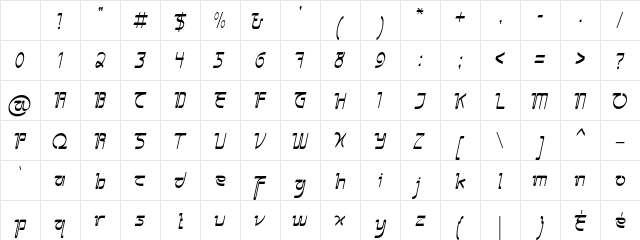
Complete Sangkuriang Regular glyph index. Displaying only characters natively supported by Sangkuriang Regular font.
Sangkuriang is a composed and adaptable typeface that performs quietly and consistently across a wide range of design contexts.
Who designed the Sangkuriang Regular font?
This font was published by Gregorius Wisnu Prastowo. Check the technical specs section for copyright and designer details.